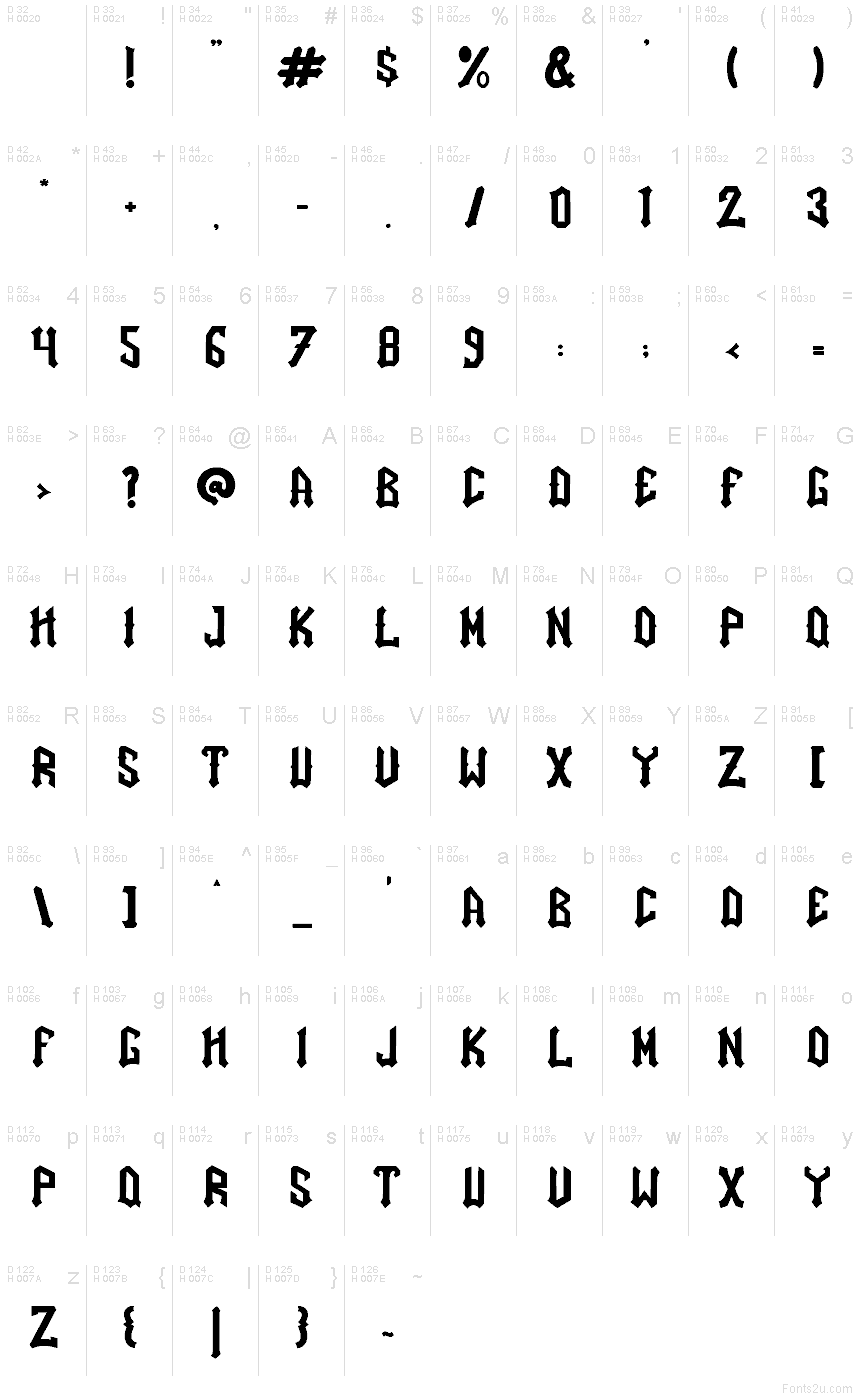
Fire Wisdom
Fire Wisdom font by Asep Rendi is a gothic-inspired typeface with a modern touch. Its condensed characters give off a medieval feel with ornate detailing, offering an authoritative and dramatic presence. The free gothic font captures ancient aesthetics most authentically.
Visual, online or print graphic design projects can make the best use of Fire Wisdom. Use it for posters, magazine covers, book cover titles, advertisements and branded printouts such as t-shirts among others. Bloggers will find the font useful in logo design or blog poster headings and sub-headings in post content backgrounds.